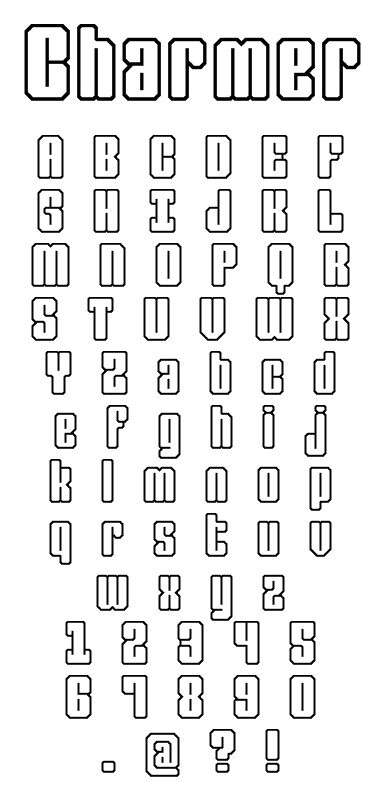
Not much of a sample, but...
funky new stlye. i like that thumb action on the F and G :)
I forgot to mention there are a few alternates...a, e, and 0. I also forgot to put them in the sample.
Nice one Aphoria. I could see some fun fills with this one. Dig that @ symbol.
This is very well done, aphoria. Love the 1 and the G. The join at the C looks like it's puckering up to kiss you. :)
The @ is gorgeous...but it is supposed to have the single bowl a in it...I think.
I'm running out of superlatives. I need to go to the store and get some more.
What have I got left in the box? Charming indeed. Subtle. Absolutely beautiful colour.
really cool solutions on this one.
great "@"!
are you gonna try an ampersand"
@thalamic You got me thinking about the @. I thought I'd surely seen some like this, but couldn't think of any names. So, I looked through all the fonts on my computer. I found a handful:
Here are the alternates.
] = a
~ = e
` = 0
@jmarquez I'll ponder a &. :)
I don't know why the alternates image is appearing on this post, but I can't get rid of it.
Aha! That Museo @ is tasty. So there are precedents. And Corbel is an Ascender Corp. font, so I guess there's research behind it. But...from my own Buddha thinking, the 'at the rate of' symbol must have been developed a long time ago, pre-publishing (?), maybe. The point is, the one bowl @ can be written in a single stroke, while the typeset a requires two strokes. Since the purpose of @ was, probably, to reduce the writing out of the same stuff over and over in accounting ledgers and balance sheets, it only makes sense if it was single stroke.
That's all aside. Since the real purpose of writing is to communicate, and since both a @ do the same thing effectively, I suppose it is OK to use either.
I added an alternate, more traditional @, just for thalamic. :)
It's on the ^.
From History of the 'at' symbol
"History tells us that the @ symbol stemmed from the tired hands of the medieval monks. During the Middle Ages before the invention of printing presses, every letter of a word had to be painstakingly transcribed by hand for each copy of a published book. The monks that performed these long, tedious copying duties looked for ways to reduce the number of individual strokes per word for common words. Although the word "at" is quite short to begin with, it was a common enough word in texts and documents that medieval monks thought it would be quicker and easier to shorten the word "at" even more. As a result, the monks looped the "t" around the "a" and created it into a circle-eliminating two strokes of the pen."
I added an & and an alternate & on the (. They are basically the same but the alternate is thinner.
Thoughts?
I thought this was thalamic's when I first saw it. Good work, aphoria. I like the overlaps.
Wow a lot of very clever work.
Has a similar look to FT Roundabout.
Well, I've never seen FT Roundabout, but that probably just got my Top Pick revoked before I even got it.
Wonderful, as everyone said. My only comment is about the j – I think it creates a big whole inside of words. You could try to make it more like the g and the y.
(And maybe the 7 could use the spine of the ? :-)
today i feel a more educated and inspired man, but that's one heck of a cool @!
Thanks cayo. The @ is definitely one of my faves in this font.